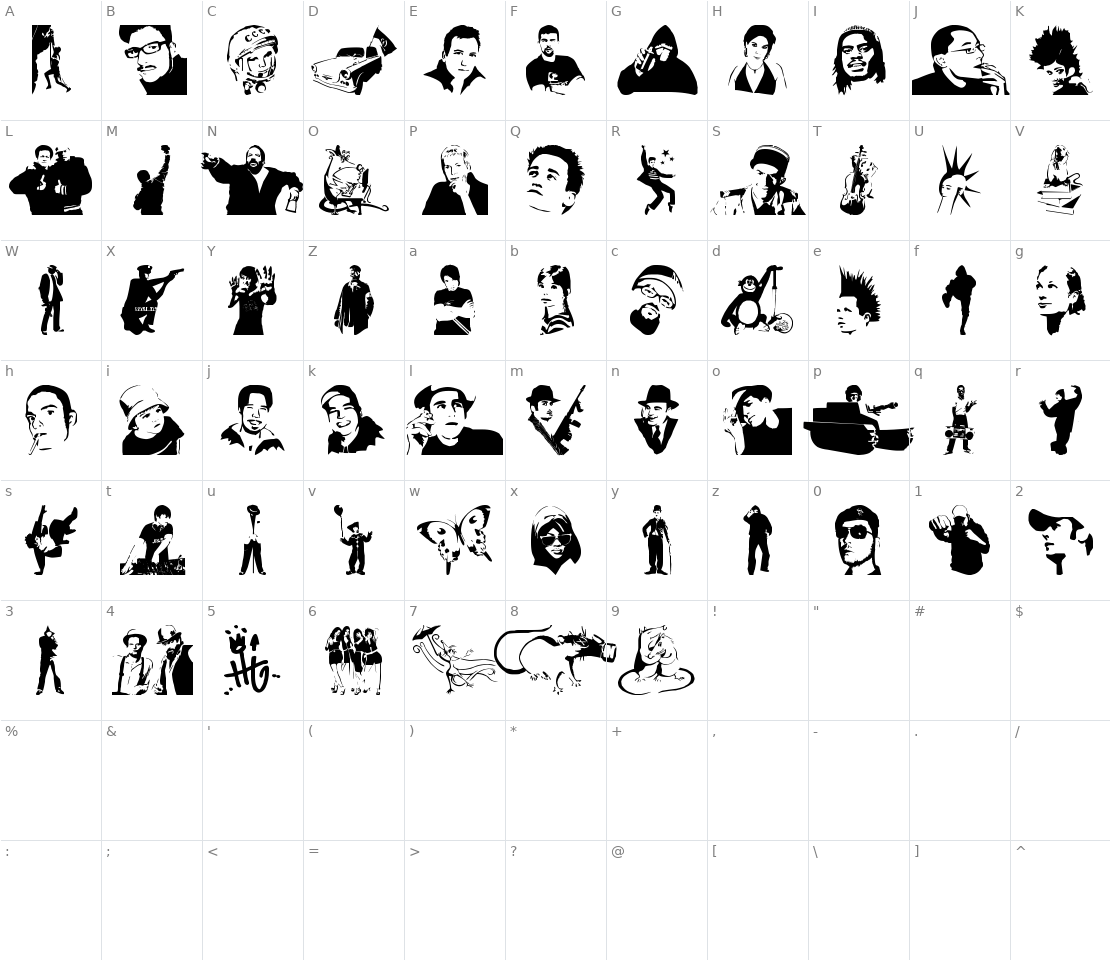
Stencilddtown
Stencilddtown is a dingbat font by cody featuring stencil-style silhouettes of people, rendered in stark black-and-white with a hand-cut, illustrative quality. Each character maps to a different figure or portrait, making it useful for adding human elements to layouts, signage, or decorative compositions without reaching for clip art.